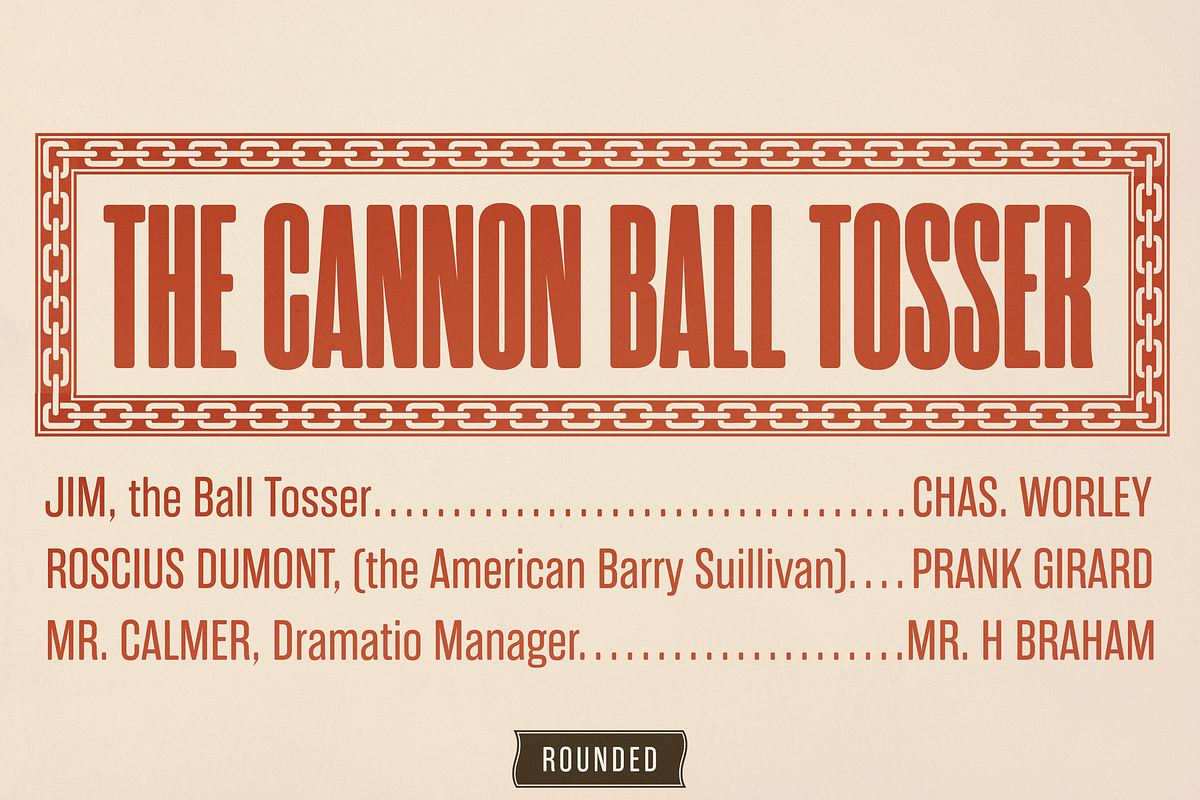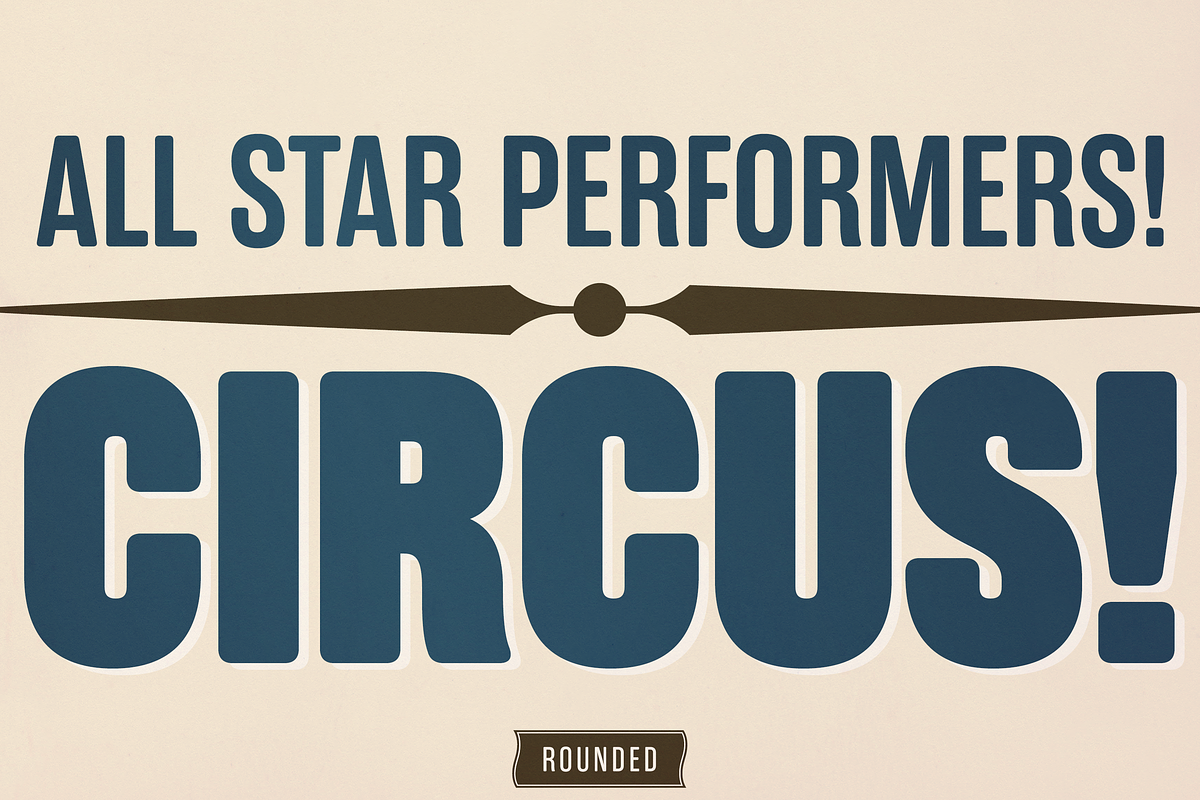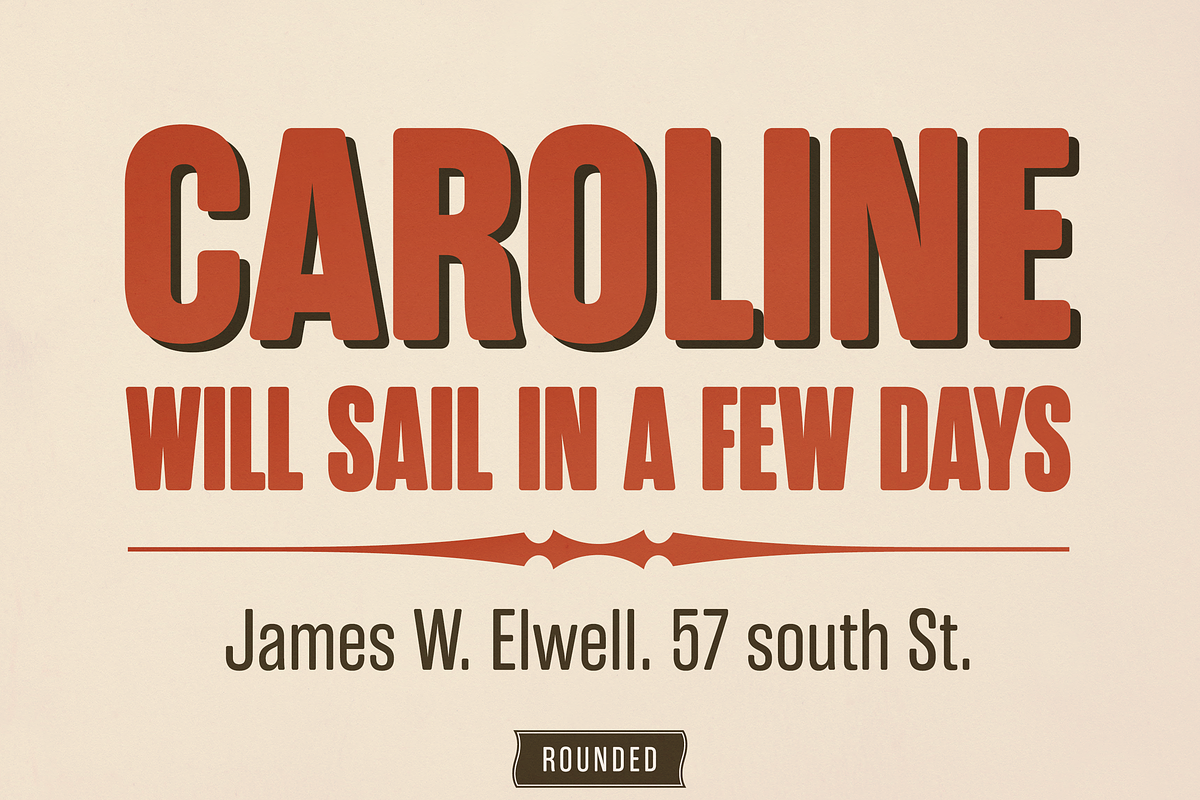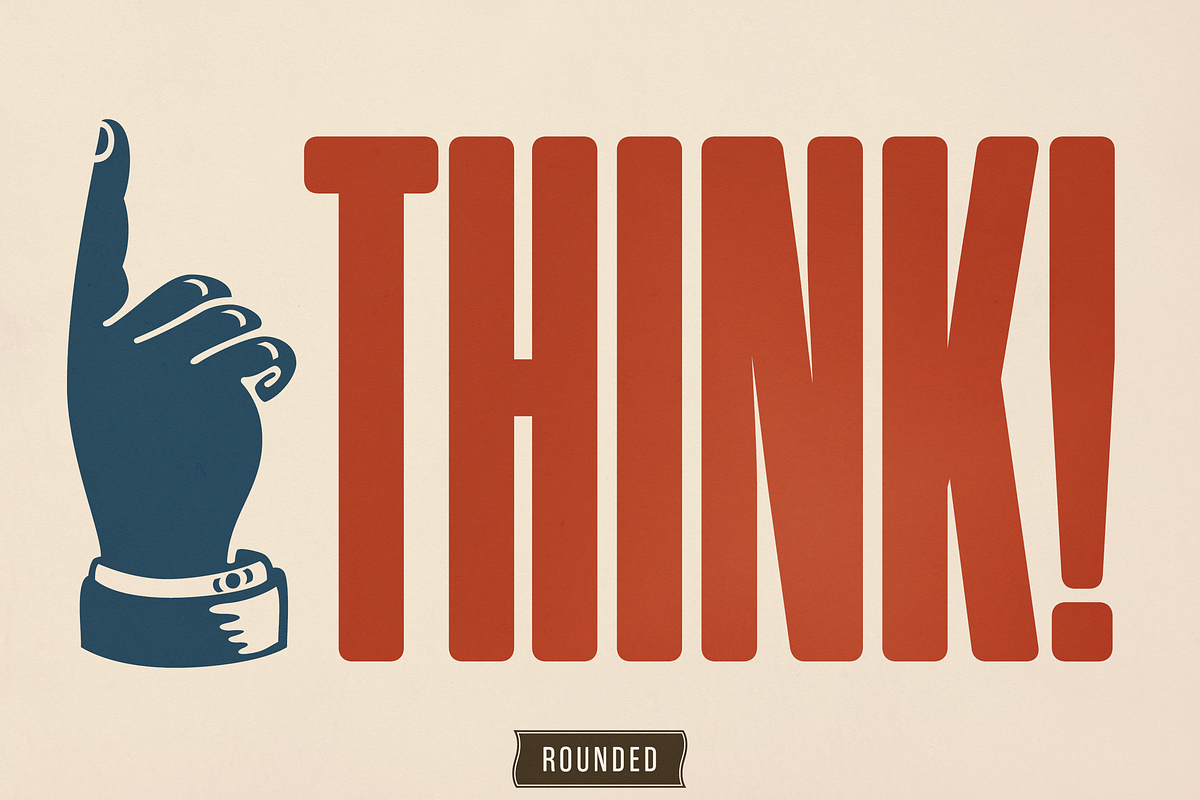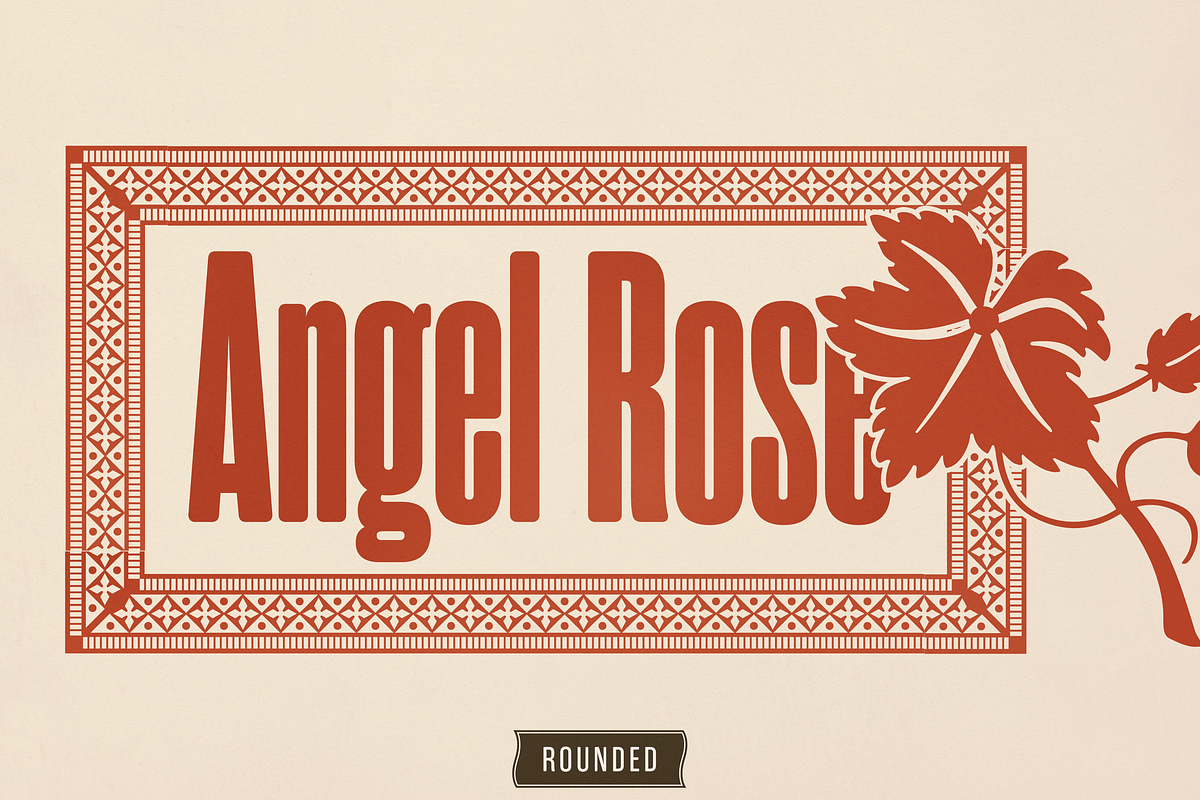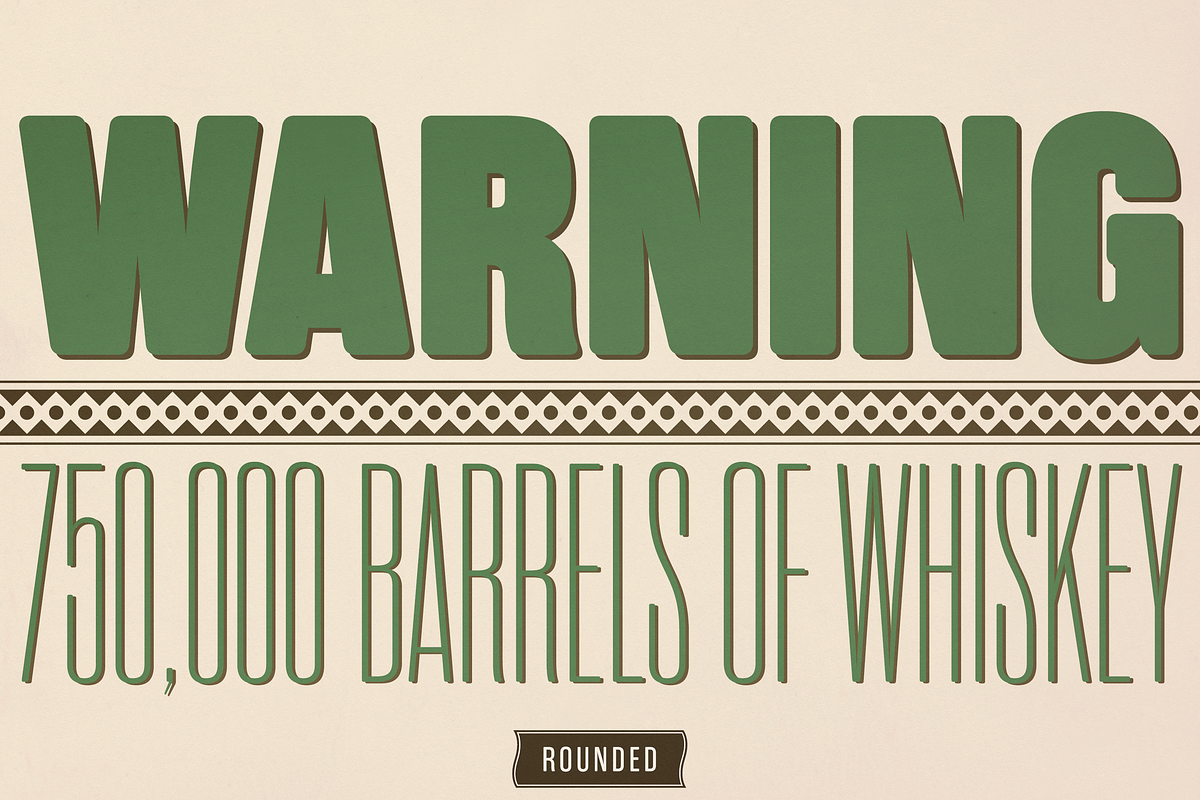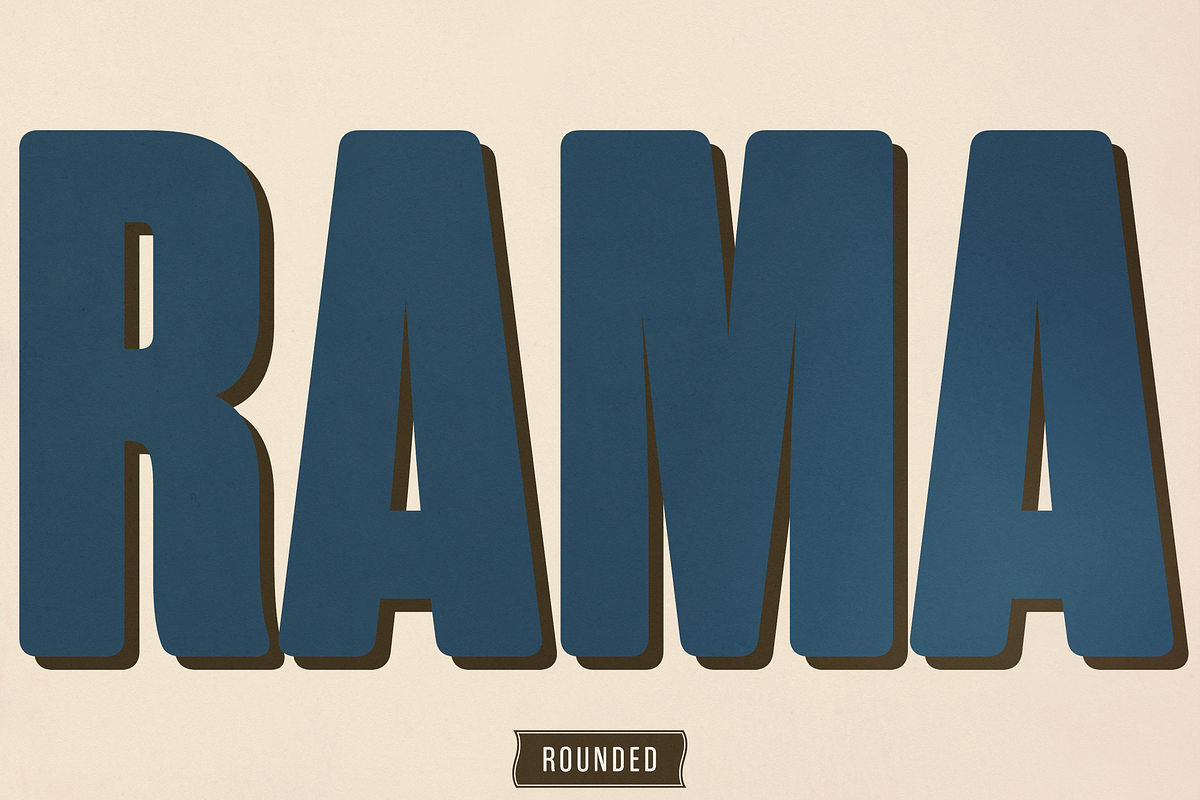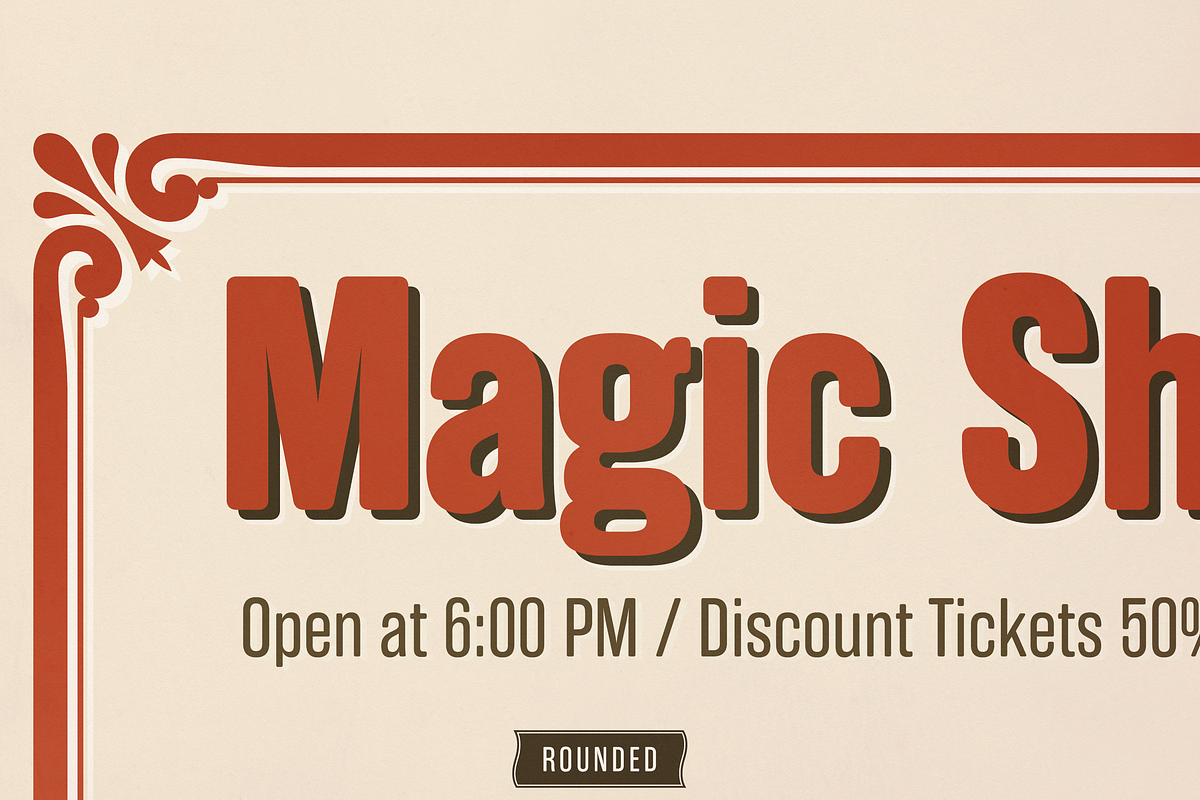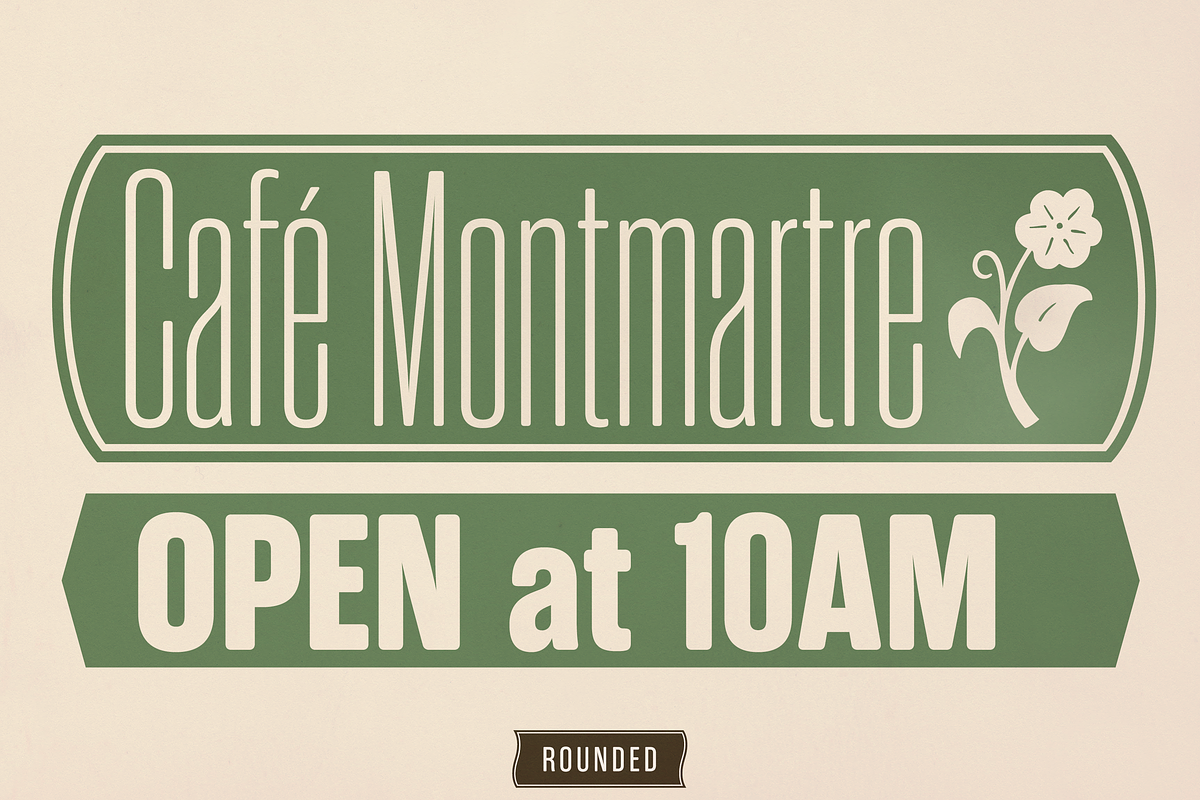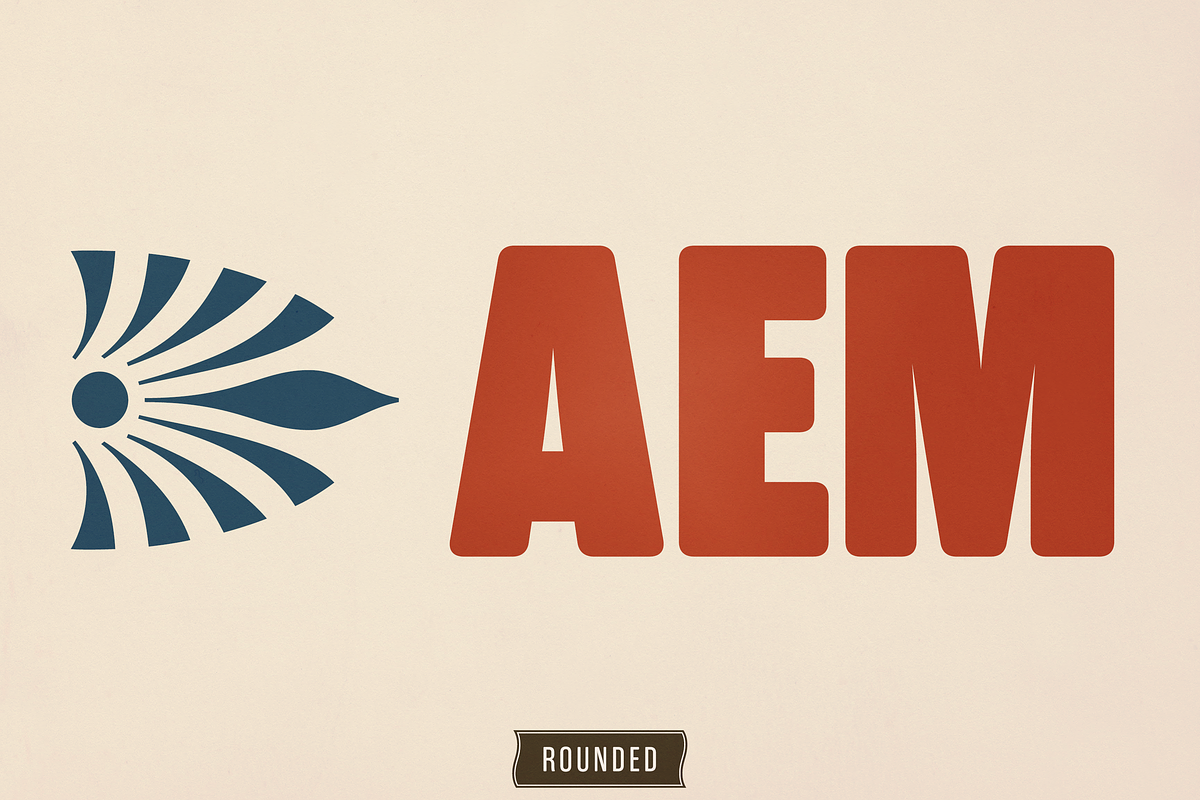
Rama Gothic Rounded
Rama Gothic Rounded is an antiqued sans serif typeface inspired by 19th-century wood type, thoughtfully designed to evoke a sense of retro charm and nostalgia.
Its condensed proportions and rounded details offer a soft yet impactful presence, making it ideal for posters, titles, and any design that requires bold, vintage flair. Every glyph has been carefully crafted to capture the character of 1800s-style typography, now refreshed with rounded corners for a more approachable, contemporary feel.